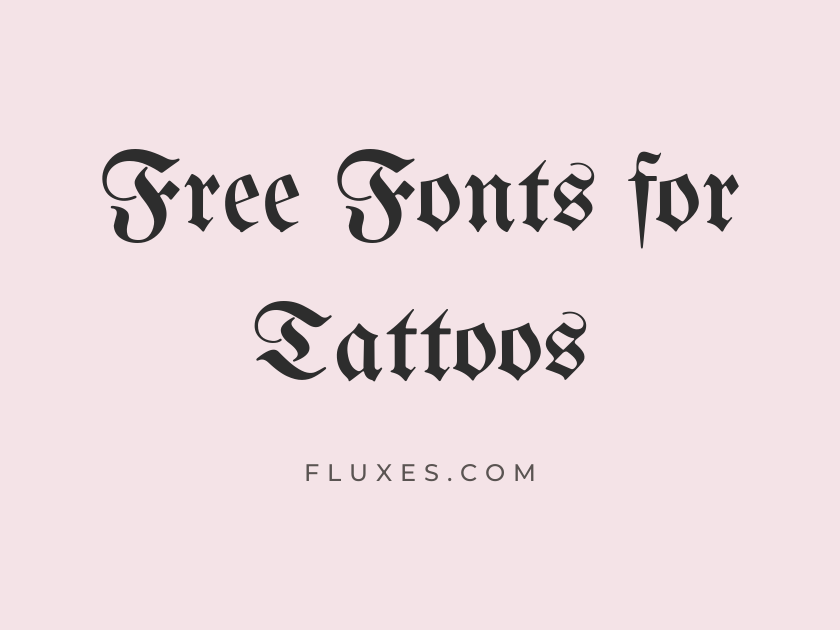
67 Best Free Fonts for Tattoos
Tattoo lettering has its own visual language, and choosing the right typeface for a design mockup, a stencil, or a client consultation sheet matters as much as the linework itself. Whether you need a dripping horror script for a haunted sleeve, a fine-line cursive for a delicate wrist piece, or a bold old-school flash face for a chest panel, there are free Google Fonts that cover nearly every corner of tattoo culture. The list below moves through blackletter and gothic faces, horror and grunge lettering, fine cursive scripts, casual handwriting, bold sailor-jerry-style display type, and a few elegant serifs suited to Latin phrases and roman numerals.
Thick, angular, and unapologetically medieval, this is the blackletter face most people picture when they imagine a gothic tattoo banner. It reads best at larger sizes since the ornate strokes can clot together when shrunk down, so save it for chest pieces and forearm bands rather than tiny lettering.
UnifrakturCook
A slightly cleaner cousin of traditional Fraktur, with heavier strokes that hold up well in stencil form. It pairs naturally with dagger and rose flash art for a classic old-world gothic look.
Pirata One softens blackletter just enough to stay legible in a tattoo mockup while keeping the pointed, medieval silhouette intact. Designers reaching for gothic tattoo fonts that still photograph cleanly on skin tend to land here.
Grenze Gotisch
Condensed and severe, Grenze Gotisch packs a lot of gothic drama into a narrow footprint, which makes it handy for vertical spine or rib lettering where width is limited.
MedievalSharp
Despite the name, this one leans more toward fantasy engraving than true blackletter. It suits date tattoos, crest-style designs, and anything meant to look chiseled rather than written.
Almendra SC
An all-caps small-caps gothic serif with a worn, storybook feel. It works nicely on banner scrolls and shield motifs where the lettering needs to feel carved rather than penned.
New Rocker
New Rocker looks like it was lettered by a metal band’s tour poster artist, all spikes and jagged terminals. It is a strong pick for anyone searching for heavy metal or horror-adjacent tattoo fonts, though it demands generous letter spacing to stay readable.
Griffy
Playful and slightly cartoonish, Griffy brings a storybook-witch energy that suits novelty flash designs, tarot-inspired pieces, and anything meant to feel hand-carved rather than formal.
This is the dripping, melting horror lettering that shows up on countless haunted house flyers, and it translates surprisingly well to tattoo mockups for horror sleeves. Keep it short; a full sentence in Creepster quickly turns into visual noise.
Nosifer
Nosifer takes the dripping-blood aesthetic even further, with jagged serifs that look freshly clawed. It is a niche choice, best reserved for single words or short horror phrases rather than long quotes.
Rough, splattered edges give Butcherman a slasher-movie title card feel. It suits Halloween flash sheets and horror-themed sleeve lettering better than anything meant to look refined.
Eater
Eater is jagged and unstable-looking by design, as if the letters themselves are decaying. Use it sparingly for maximum impact, since a whole paragraph in this style becomes exhausting to read.
Frijole
Distressed and blocky, Frijole has a rugged, hand-carved woodblock quality that fits vintage tattoo parlor signage and old-school flash lettering rather than delicate scriptwork.
Metal Mania
True to its name, this face channels heavy metal album art with sharp, aggressive letterforms. It is a natural fit for biker culture pieces, skull motifs, and anything meant to shout rather than whisper.
Jim Nightshade
Crooked baselines and uneven strokes give Jim Nightshade a haunted, hand-scrawled look, like a warning scratched into an old diary. It works well for eerie quote tattoos that need personality over polish.
A graceful brush script with confident, sweeping connections, Alex Brush is one of the most requested styles for fine-line cursive tattoo lettering. It photographs beautifully on forearms and collarbones where the flowing strokes have room to breathe.
Elegant and formal, Great Vibes leans closer to wedding calligraphy than street tattoo culture, which is exactly why it works so well for sentimental script pieces like memorial names or anniversary dates.
When in doubt, ask a tattoo artist to hand-adjust the stencil after you have chosen a typeface. A great free font from Google Fonts gives you the right starting shape, but a skilled artist will refine spacing and line weight for how it will actually heal on skin.
There is a font here for nearly every tattoo style, from delicate single-needle scripts to bold old-school flash lettering, and all of them are free to download and test before you commit to a design.